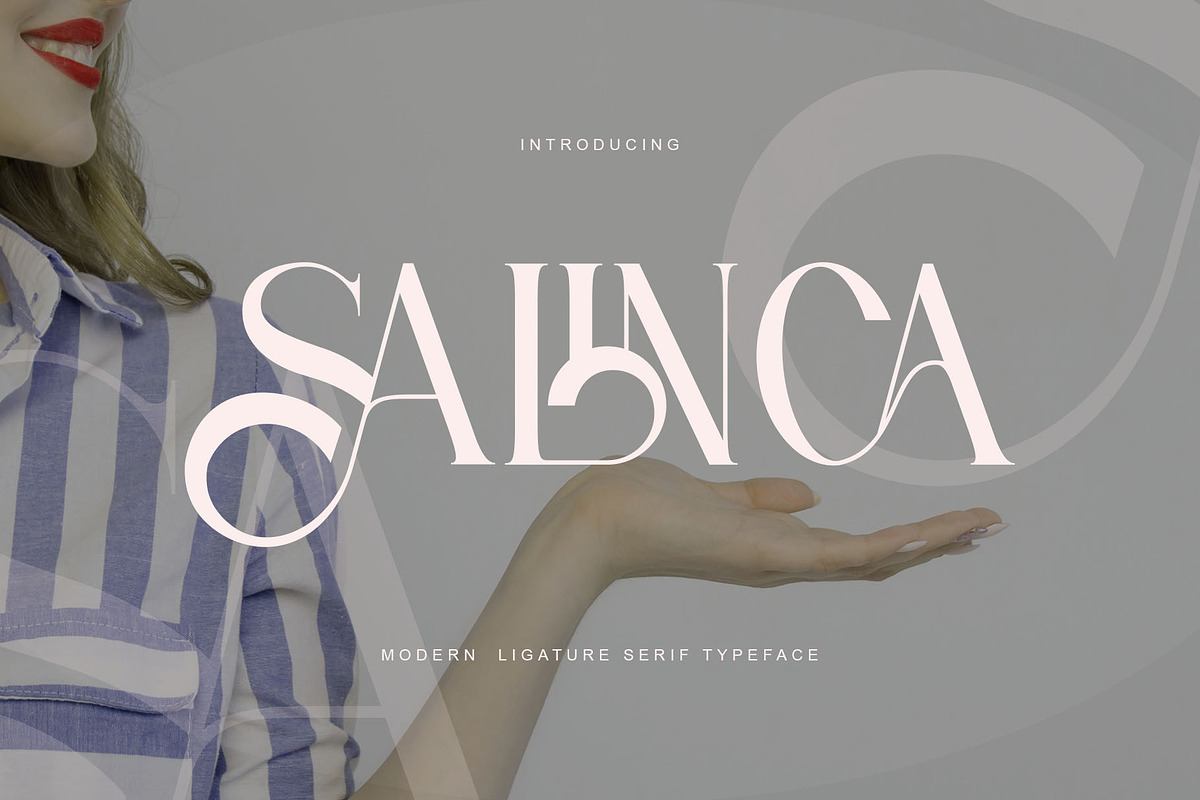
SALINCA Unique Serif Typeface Free Download
The SALINCA Unique Serif Typeface Free Download is a stylish and distinctive serif font that combines classic elegance with a modern twist. Perfect for creating high-end branding, editorial designs, logos, and invitations, this font brings sophistication and uniqueness to any project. Please note, for commercial use, a license must be purchased. You can download it for free for testing purposes.
With its refined serifs and unique design elements, the SALINCA Unique Serif Typeface Free Download is ideal for projects that require a touch of luxury and creativity. Whether you're designing for fashion, luxury brands, or premium publications, this font will help elevate your work with its sleek, professional appearance.